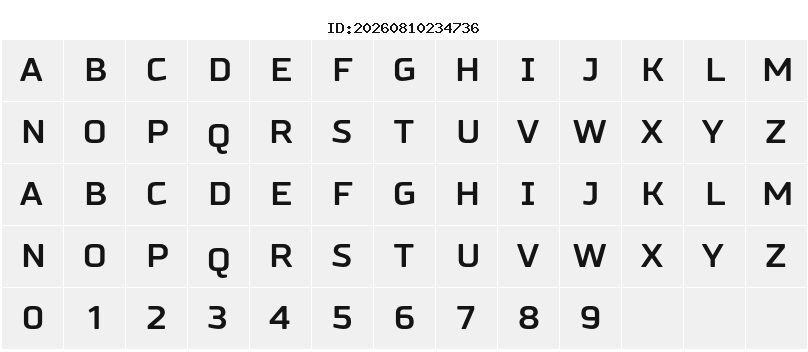
• Font Name: Russo Sans Bold
• Designer: Typetype
• Description: Designed for Typetype in 2014 by Ivan Gladkikh. TT Russo Sans is one of series of font families which were designed for use in web and mobile applications, print and multimedia environments.
About Russo Sans Bold.otf
Russo Sans Bold.otf is a modern, elegant sans-serif font designed for ultimate readability and visual harmony. Perfect for branding, headlines, web design, and print materials.